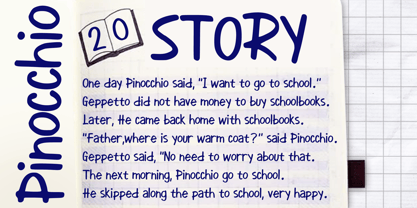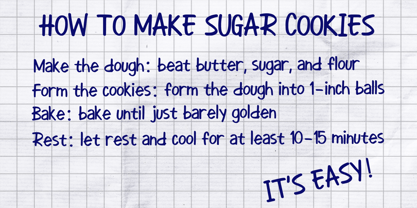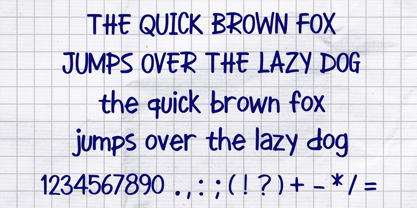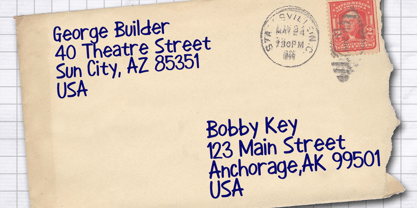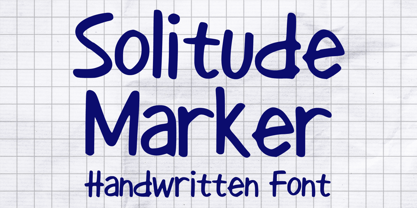
Solitude Marker
The Solitude Marker Font Family was designed by Gabriel Valentinus and published by Mvmet. Solitude Marker contains 1 styles. More about this family
Solitude Marker is a striking bold hand-lettered marker font that enhances a diverse array of design projects. Perfect for stickers, t-shirt designs, notes, captivating logo designs, magazine or book covers, comics, and cartoon illustrations, this font brings a unique flair to your creative endeavors. With its dynamic style and versatility, Solitude Marker adds an exceptional touch to any design, making it an ideal choice for branding, editorial work, and more.